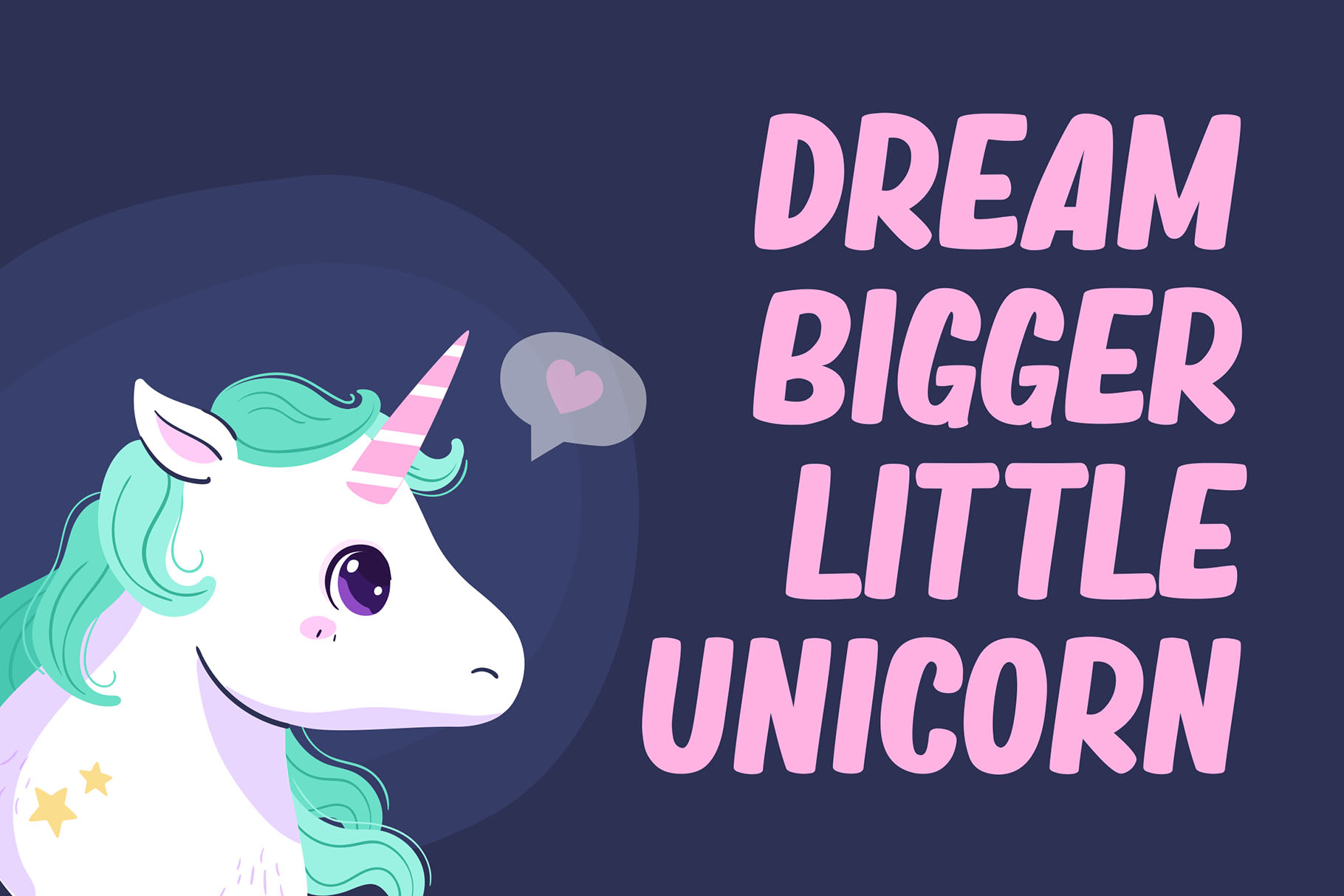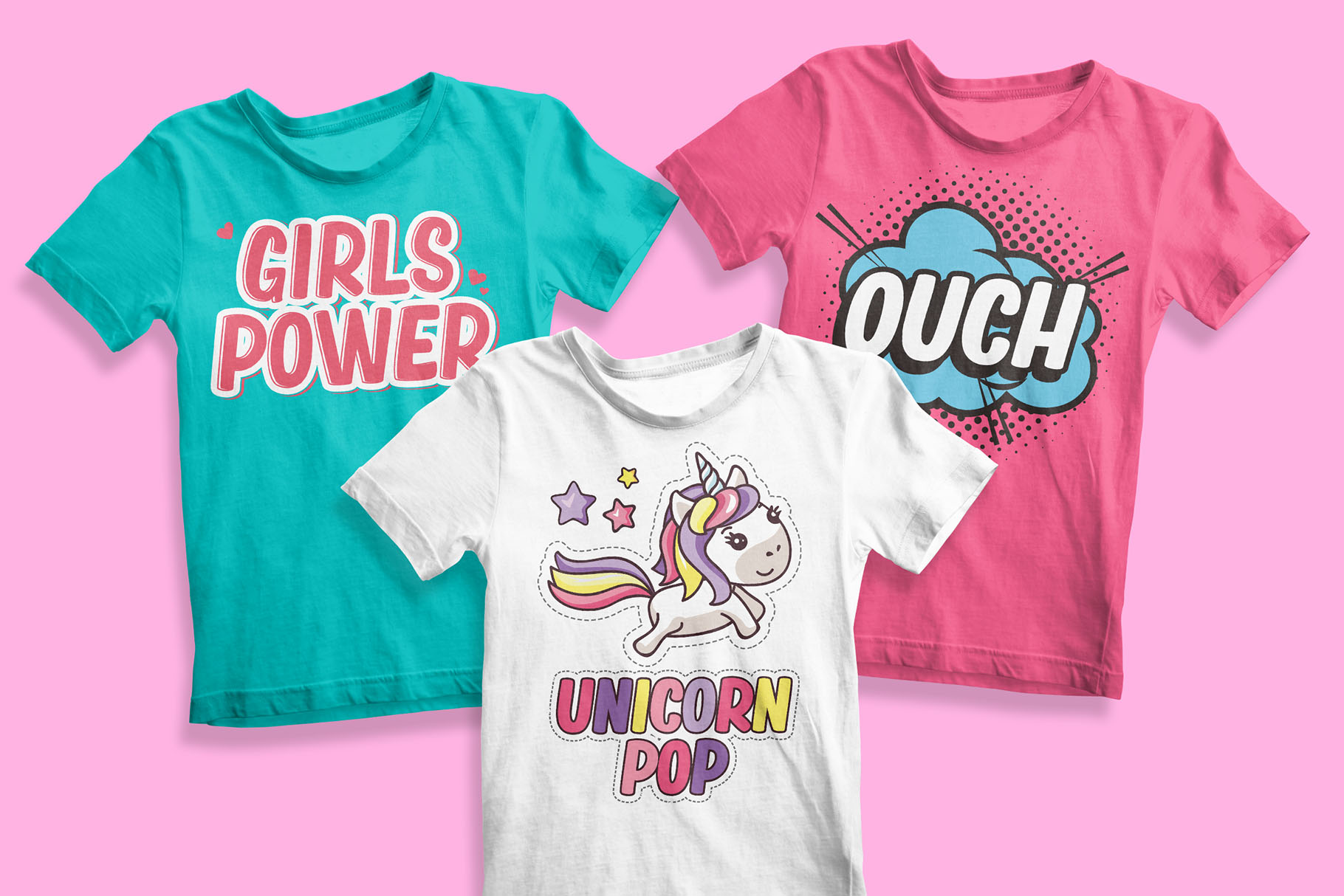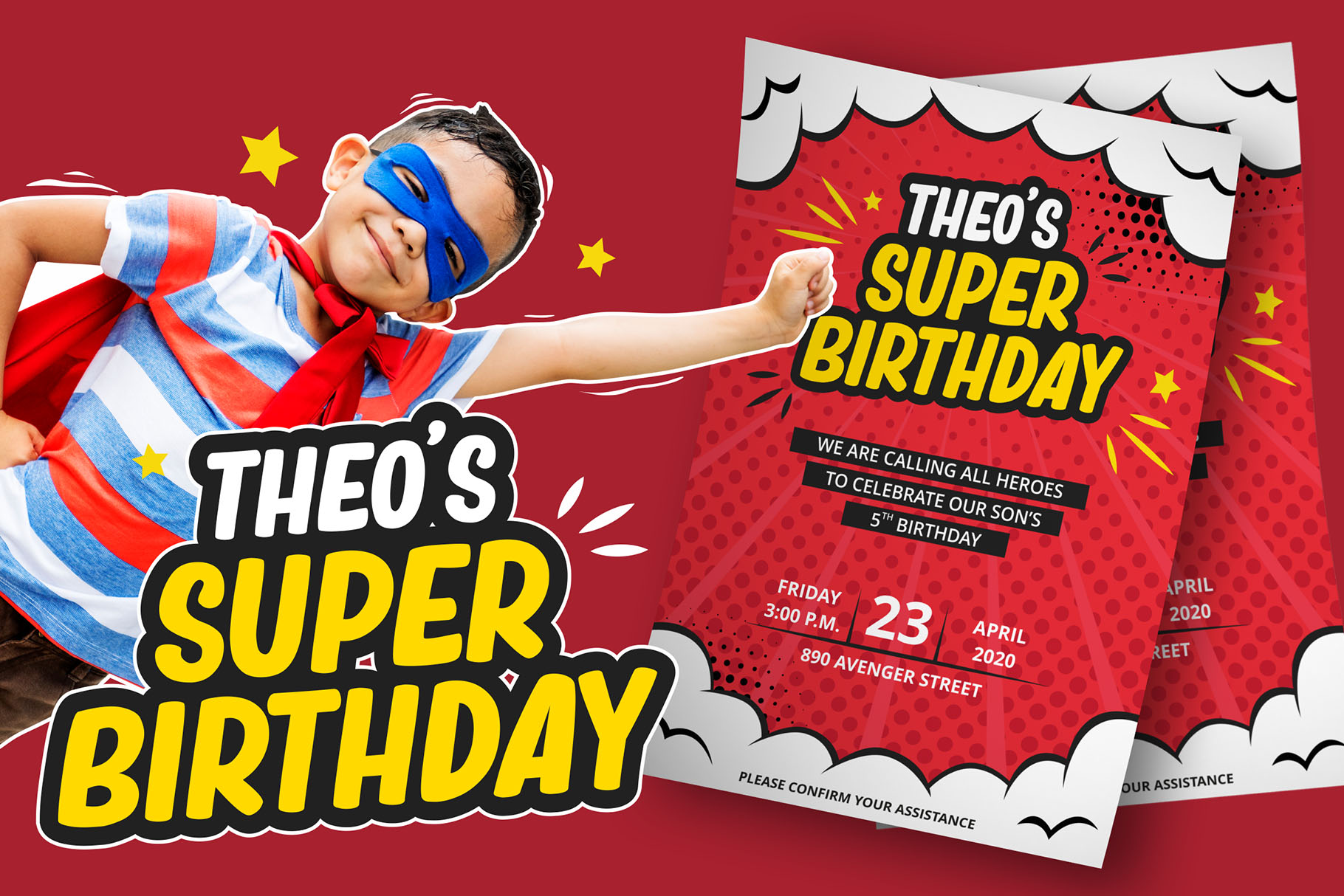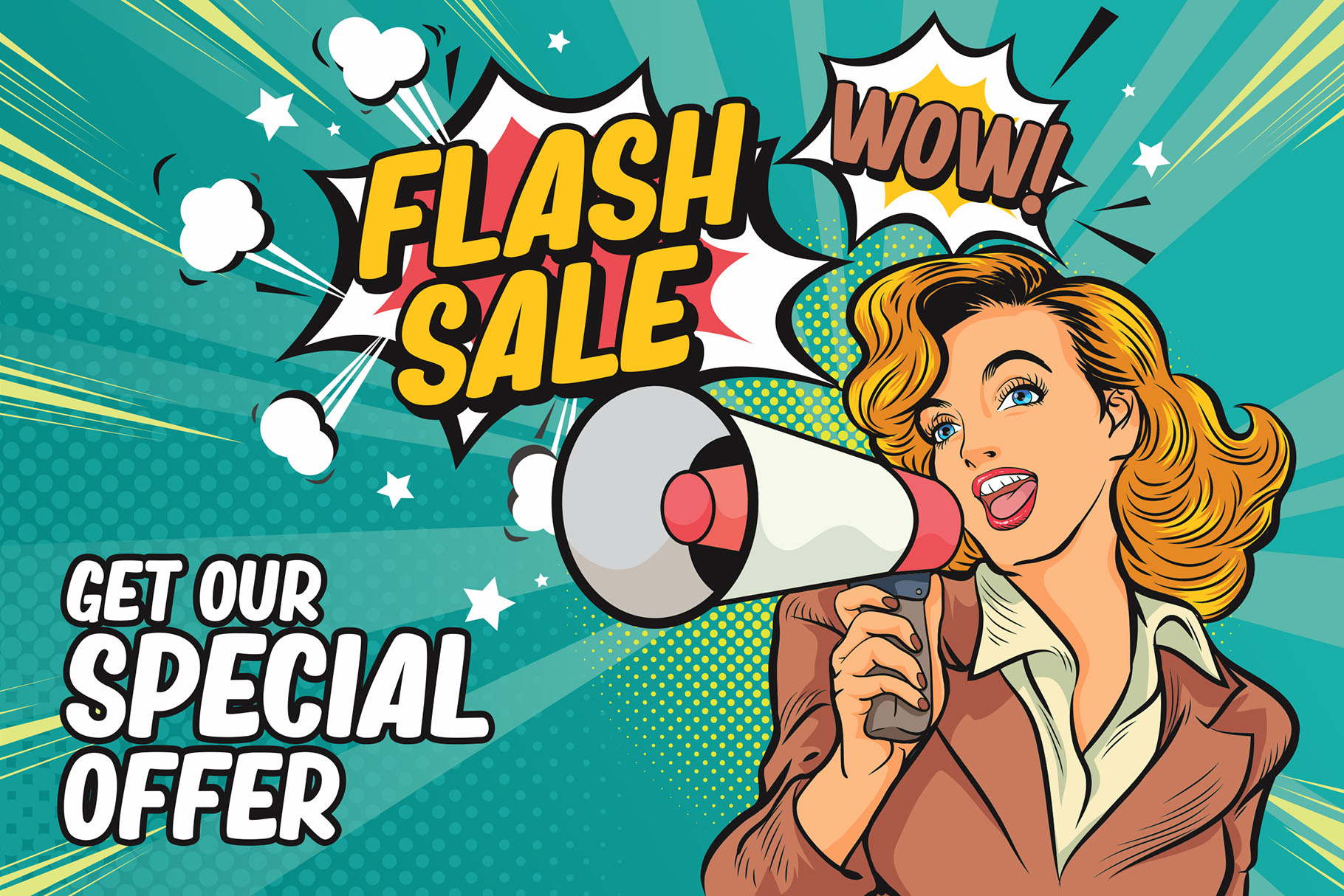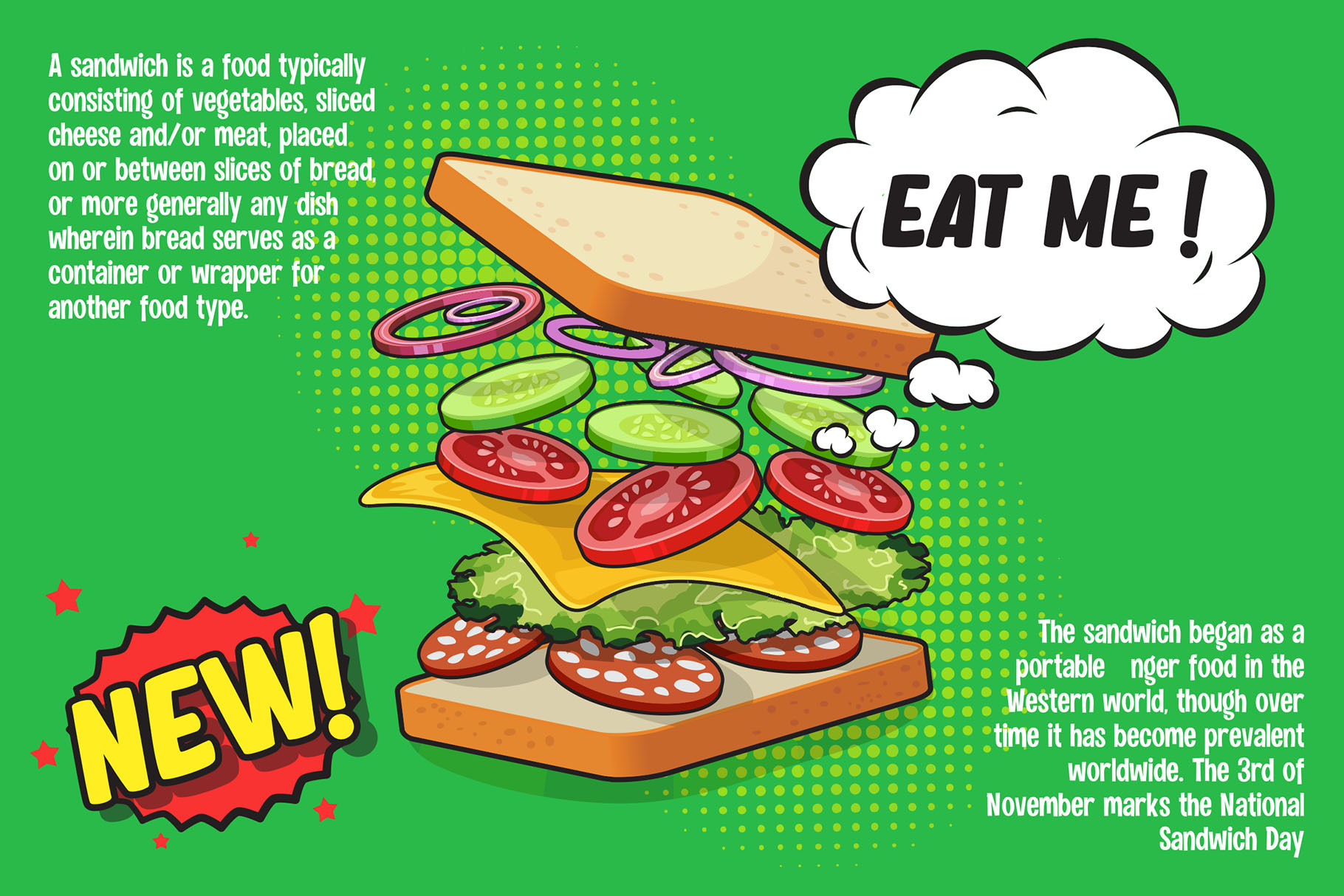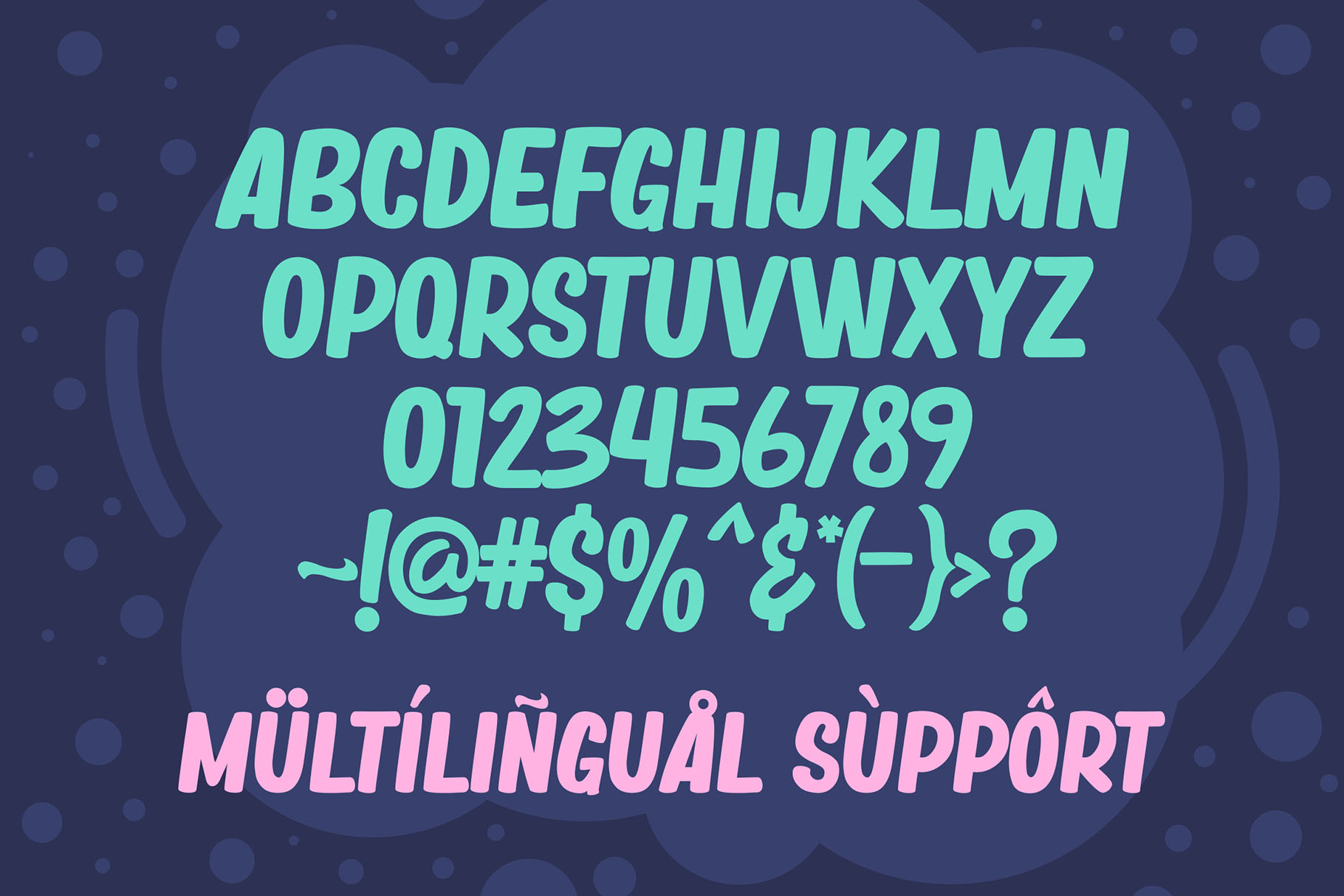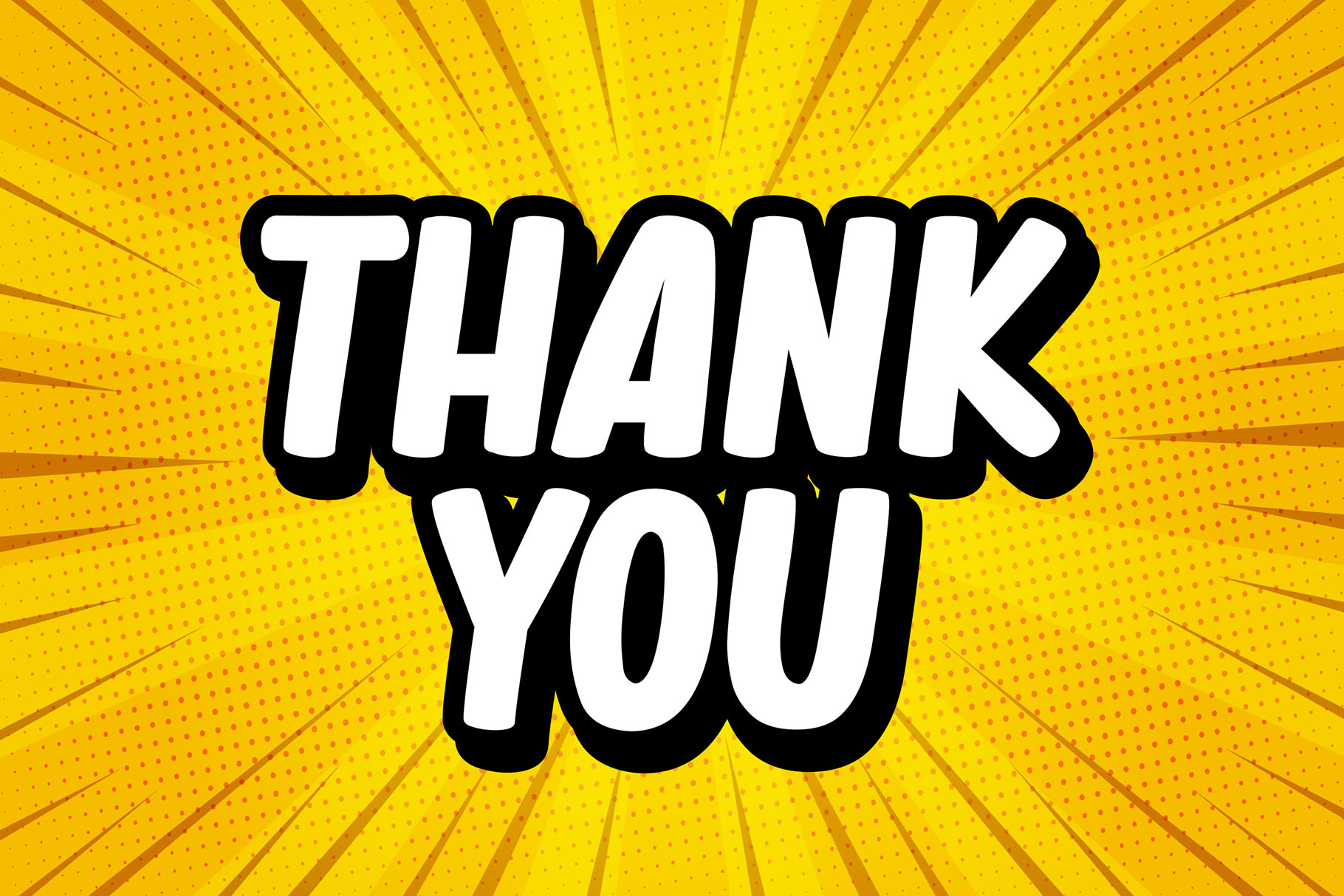
Meet Magic Dreams Comic Font
Magic Dreams comic font is made with love and joy for designers who want their work to feel cute, fun, friendly, and full of color. With its playful comic look, this font brings a cheerful visual personality to creative projects that need warmth, imagination, and a strong display presence.
This is the kind of font that instantly makes a design feel more approachable. It is expressive without feeling too complicated, playful without losing readability, and bold enough to become the main visual element in your layout.
Magic Dreams is especially useful when you want your typography to feel lighthearted and happy. Whether you are working on a children’s product, a fun poster, a digital craft design, or a playful brand concept, this font helps your message feel bright and memorable.
Magic Dreams has a comic-inspired display style with a cute and joyful mood. Its all-caps structure gives the font a strong headline character, making it easy to use for titles, short phrases, packaging text, stickers, labels, and playful promotional graphics.
The visual direction feels friendly, young, colorful, and imaginative. It can support designs that need a cartoon-like energy, especially for projects related to kids, crafts, fun events, school themes, party graphics, social media posts, and cheerful product branding.
Because Magic Dreams has a display personality, it works best when used intentionally. Use it for words that need attention: product names, headers, short quotes, greeting card messages, poster titles, and packaging callouts. Pair it with a simpler supporting font when your layout includes longer text.
Best Use Cases for Magic Dreams Comic Font
Magic Dreams comic font is a strong choice for creative projects that need a sweet, expressive, and playful tone. It can help turn simple words into visual statements that feel more fun and engaging.
Use Magic Dreams for children’s branding, toy packaging, party invitations, birthday designs, classroom graphics, digital stickers, printable crafts, cheerful posters, YouTube thumbnails, social media graphics, quote designs, apparel designs, and colorful merchandise.
It can also work well for crafters and small business owners who create digital products for marketplaces. If you design printable wall art, kids worksheets, SVG-style craft layouts, greeting cards, or cute product labels, Magic Dreams gives your typography a joyful character that feels easy to love.
For brand designers, this font can be useful when building a playful identity system. It is not made for serious corporate minimalism. It is made for projects that want charm, fun, and a lighthearted visual voice.
Key Features
• All-caps font
• Includes numbers and punctuation marks
• Supports multilingual use
• Includes OpenType stylistic alternates
Designers love fonts that make the creative direction clear from the first glance. Magic Dreams helps communicate joy, playfulness, and friendly personality without needing heavy visual effects.
Its all-caps construction makes it useful for strong display typography. You can use it for short, punchy words that need to stand out, especially in layouts where the font itself becomes part of the illustration style.
For content creators, Magic Dreams is useful for thumbnails, social media posts, and cute quote graphics. For crafters, it can support fun printable designs and personalized gift concepts. For packaging designers, it can bring a lighthearted mood to products aimed at children, families, playful brands, or seasonal campaigns.
Choose Magic Dreams when your project needs a font that feels friendly, expressive, and easy to enjoy.